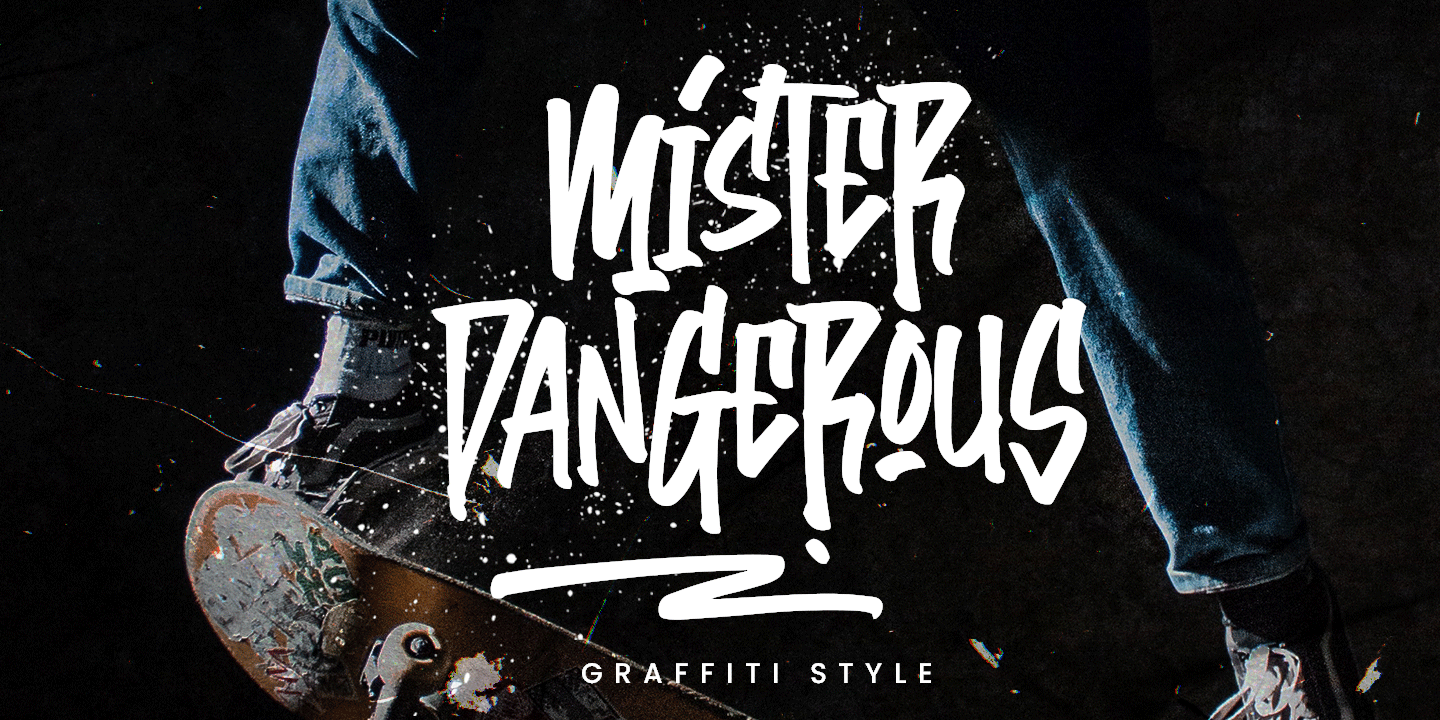
This bold and edgy typeface is a perfect match for projects like movie posters, gaming titles, music album covers, streetwear branding, and digital artwork that needs a touch of rebellious energy.
What makes Mister Dangerous Font so exciting is its gritty, rough-edged style that screams attitude. It's a font that doesn’t whisper—it shouts. With jagged strokes and a hand-crafted look, it brings raw power to your text and instantly adds an underground, almost cinematic vibe to any design.
The Mister Dangerous Font family includes a variety of styles like Regular, Grunge, Shadow, and All Caps variants. Each one carries its own personality while staying true to the original theme, allowing you to build dynamic typographic compositions with consistency and flair.
Whether you're designing for urban culture, action-themed projects, or simply want to stand out with bold lettering, Mister Dangerous Font Free Download is a fantastic way to test the font before committing to a full license. Its strong presence and flexible family structure make it a valuable asset for designers who aren’t afraid to break the rules and push boundaries.